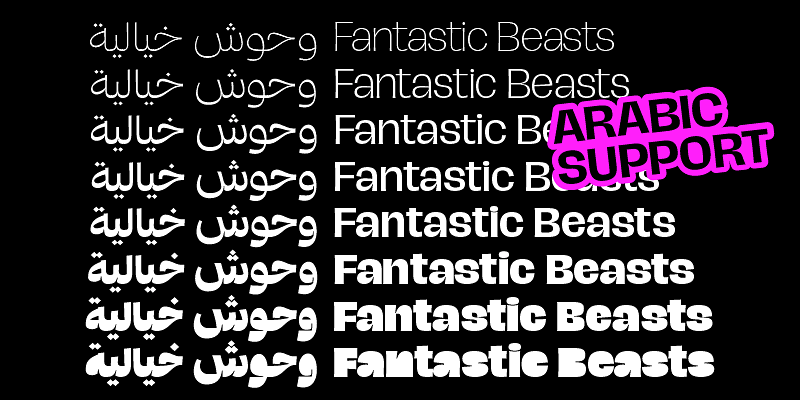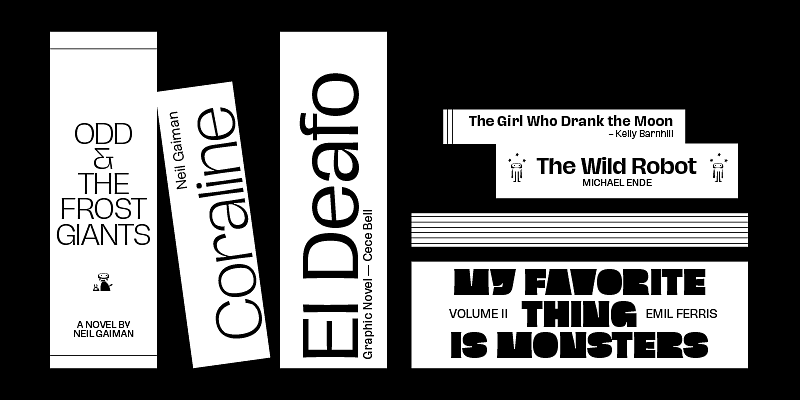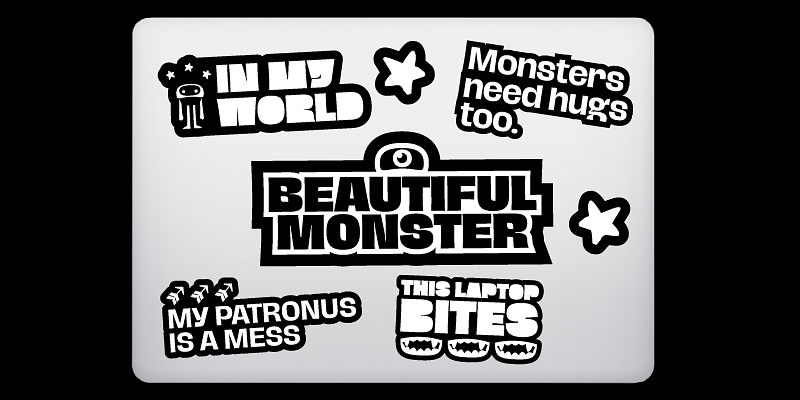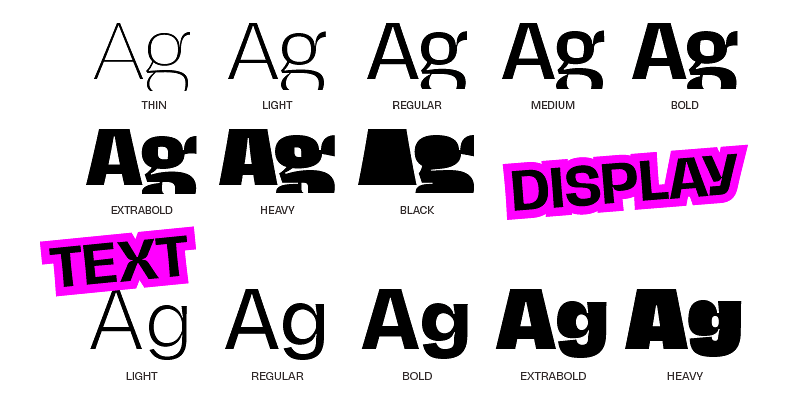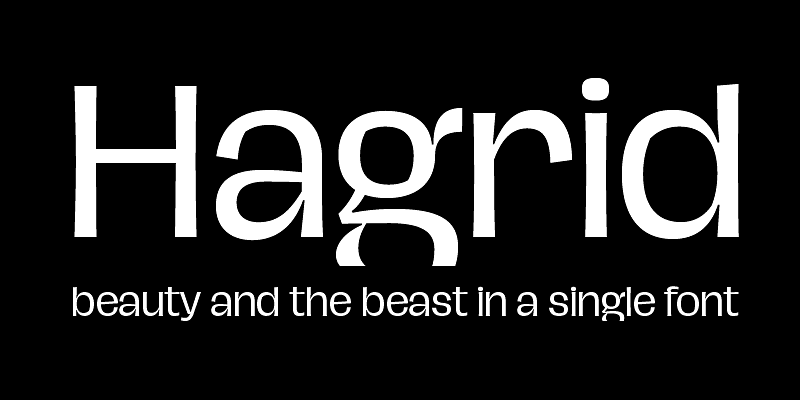
Cosimo Lorenzo Pancini designed Hagrid as a celebration of the expressive potential of grotesque letterforms when exposed to the crypto-typographer’s love for the strange and the overlooked. Hagrid blends grotesque structure with calligraphic counterspaces, inverted contrast, and brutalist shapes to create a bold, impactful voice for both print and digital use. Originally released as a display family, Hagrid was expanded and redesigned in 2025 to improve readability and functionality. The updated Text family features refined proportions, and optimized spacing for long-form reading, while the Display family introduces subtle contrast in lighter weights and a new Black style with fully closed counterspaces for maximum visual impact. The family supports Extended Latin, Cyrillic, Greek, and Arabic scripts, with the Arabic set revised in collaboration with Murad Alshawareb. OpenType features include positional numbers, discretionary ligatures and a playful “Monsters” stylistic set that transforms letters into expressive, creature-like forms. Hagrid is ideal for editorial, branding, and expressive typography projects that embrace originality and typographic personality.